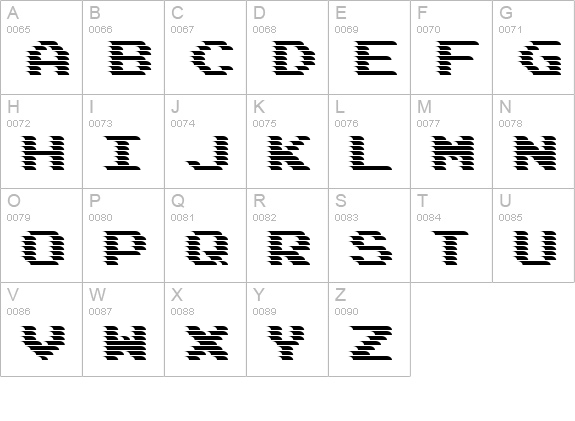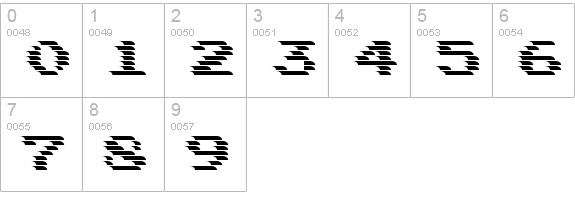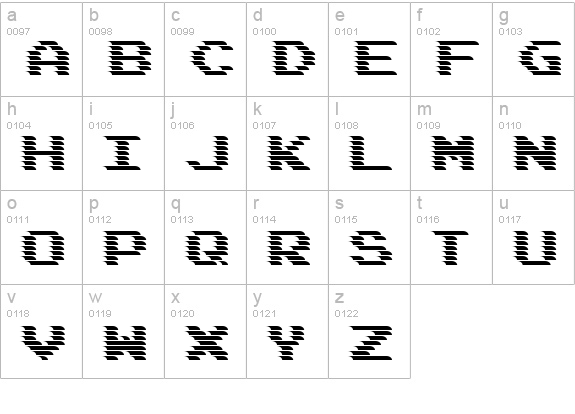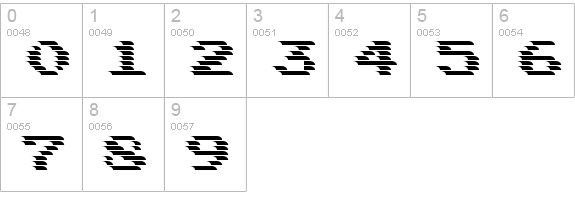
DEADCRT Regular Font Details
DEADCRT Regular is the standard, neutral variant in the DEADCRT typeface family \xE2\x80\x94 well suited to general body text, paragraphs, and standard typographic work.
DEADCRT Regular font is a sleek and modern typeface that exudes a sense of edgy sophistication. With its clean lines and bold presence, this font is perfect for creating eye-catching designs that demand attention. Whether you're working on a poster, logo, or website, DEADCRT Regular will add a touch of contemporary flair to your project. Best of all, DEADCRT Regular is available for free download at FontsMarket.com. This means you can easily access this stylish font and incorporate it into your design work without any cost. Don't miss out on the opportunity to enhance your creations with the striking aesthetics of DEADCRT Regular - download it today and let your creativity shine!